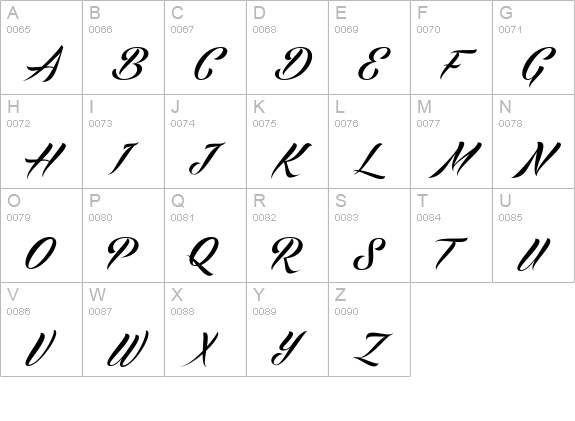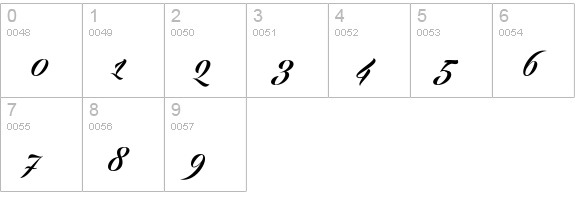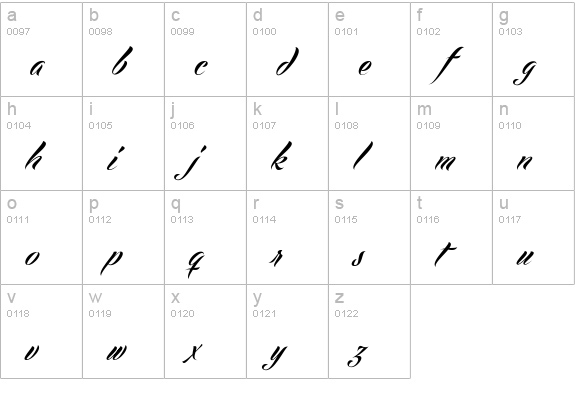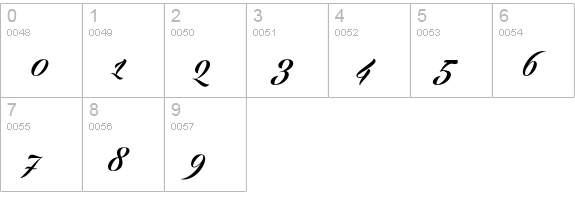
Echinos Park Script - PERSONAL USE ONLY Font Details
Below you can preview Echinos Park Script - PERSONAL USE ONLY in uppercase [A-Z], lowercase [a-z] and numbers [0-9]. You can also read the author's notes and license information before downloading.
Introducing Echinos Park Script - PERSONAL USE ONLY, a stunningly elegant font that will add a touch of sophistication to any project. This script font combines the perfect balance of delicate curves and bold strokes, making it a versatile choice for a wide range of design purposes. With its unique and stylish letterforms, Echinos Park Script - PERSONAL USE ONLY captures attention and stands out from the crowd. Whether you're designing invitations, branding materials, or social media graphics, this font will elevate your creations to new heights. One of the best things about Echinos Park Script - PERSONAL USE ONLY is that it is free! Yes, you read that right - this incredible font is freely available to download at FontsMarket.com. It's the perfect opportunity to enhance your designs without breaking the bank. Downloading and using Echinos Park Script - PERSONAL USE ONLY is a breeze. Simply head over to FontsMarket.com, locate this font, and with just a few clicks, it will be yours to use in any personal project. The ease of access to such a high-quality font is truly remarkable. The versatility of Echinos Park Script - PERSONAL USE ONLY knows no bounds. Its legibility and stylish flair make it suitable for a wide range of projects, from wedding invitations to logo designs. This font effortlessly combines elegance and modernity, making it a must-have for any designer or creative individual. Don't miss out on the opportunity to add a touch of grace and sophistication to your designs. Download Echinos Park Script - PERSONAL USE ONLY today, and let your creativity soar. Remember, it's free to download at FontsMarket.com, so why wait? Start creating stunning designs with this exceptional font now!